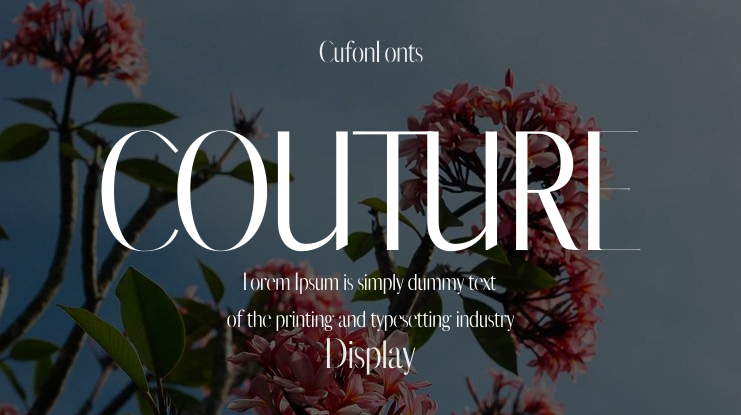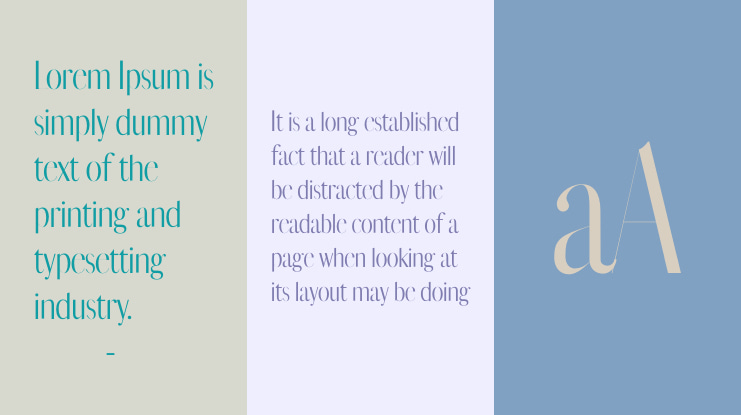
COUTURE Font
🎨 Font Name: COUTURE by Minimalist Art Studio
🎨 Font Description: Couture is a classic serif typeface with elegant curves, multilingual support, and italic styles—perfect for fashion branding, editorial spreads, packaging, and romantic design projects.
✔ Complete Latin set + multilingual diacritics
✔ Alternates, stylistic sets & ligatures
✔ Numbers, small caps, and extended punctuation
✔ Bonus italics and family styles